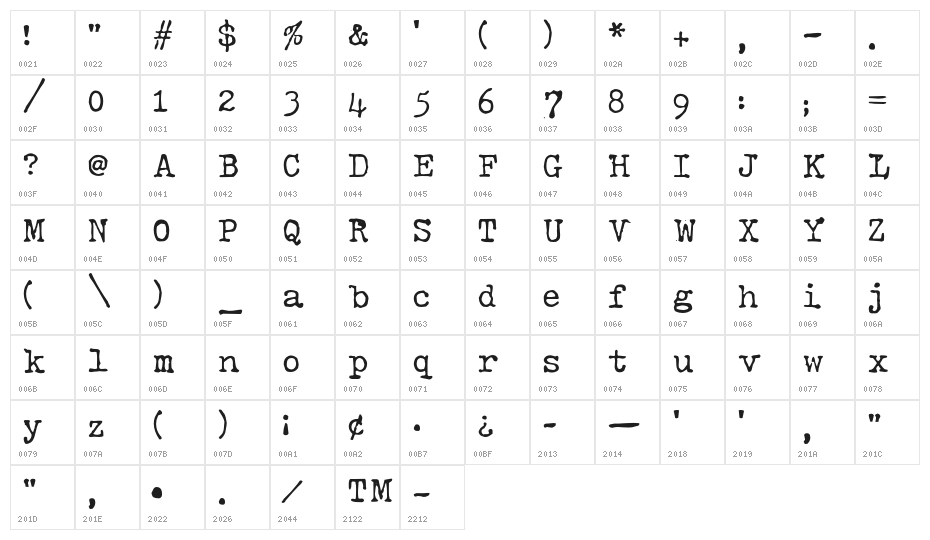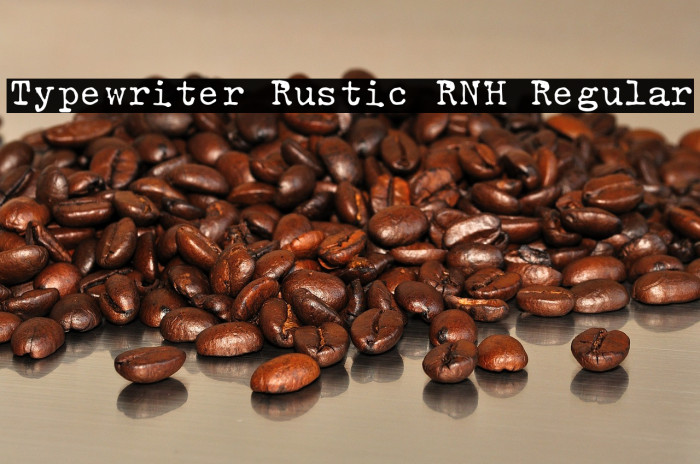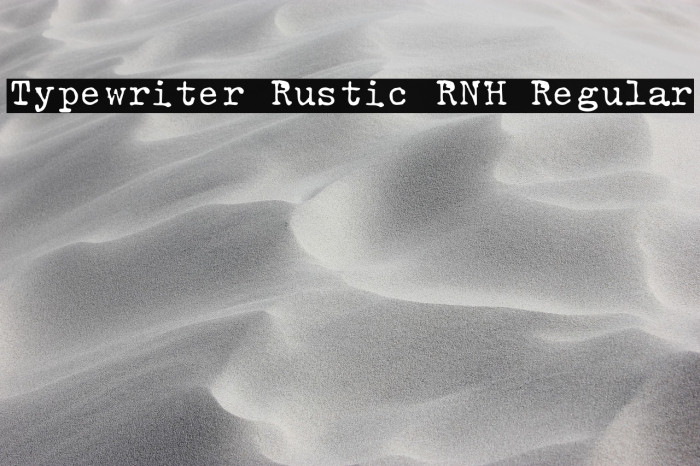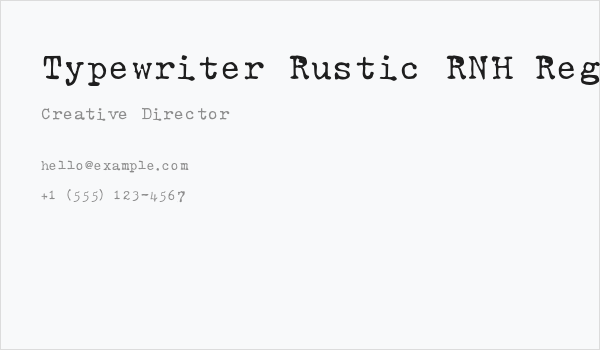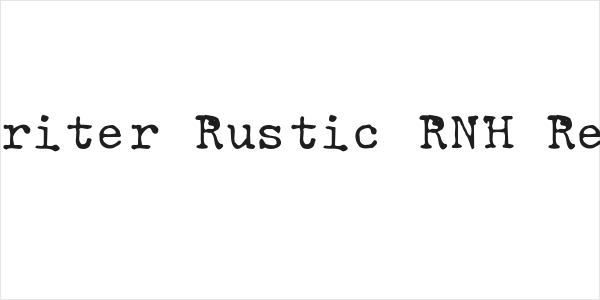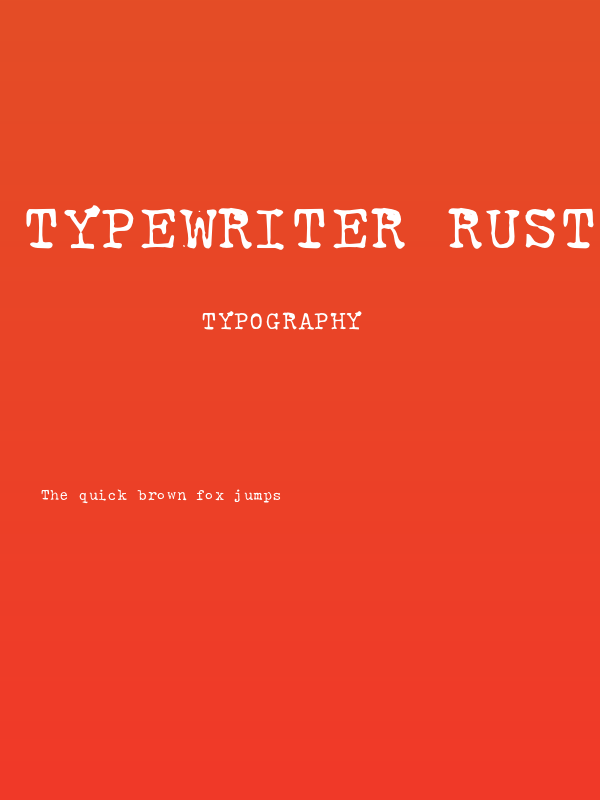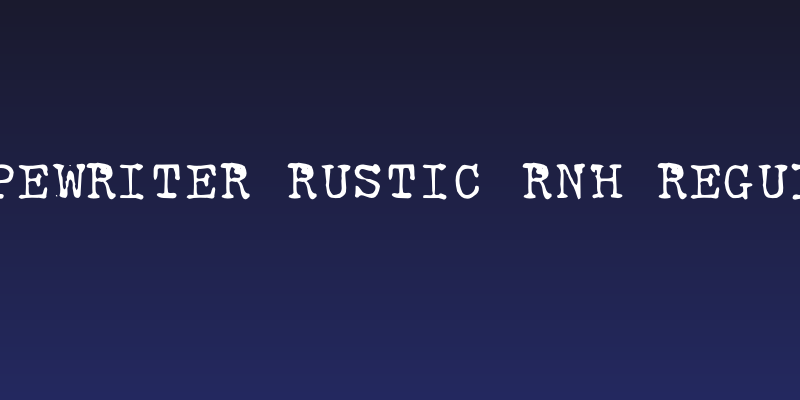
Typewriter Rustic RNH Regular Font
| Caso d'uso | Headlines, Logos, Decorative text |
| Progetti proposti | Ideal for projects that require a vintage or retro feel, such as posters, invitations, branding for artisanal products, or any design that seeks to evoke nostalgia. |